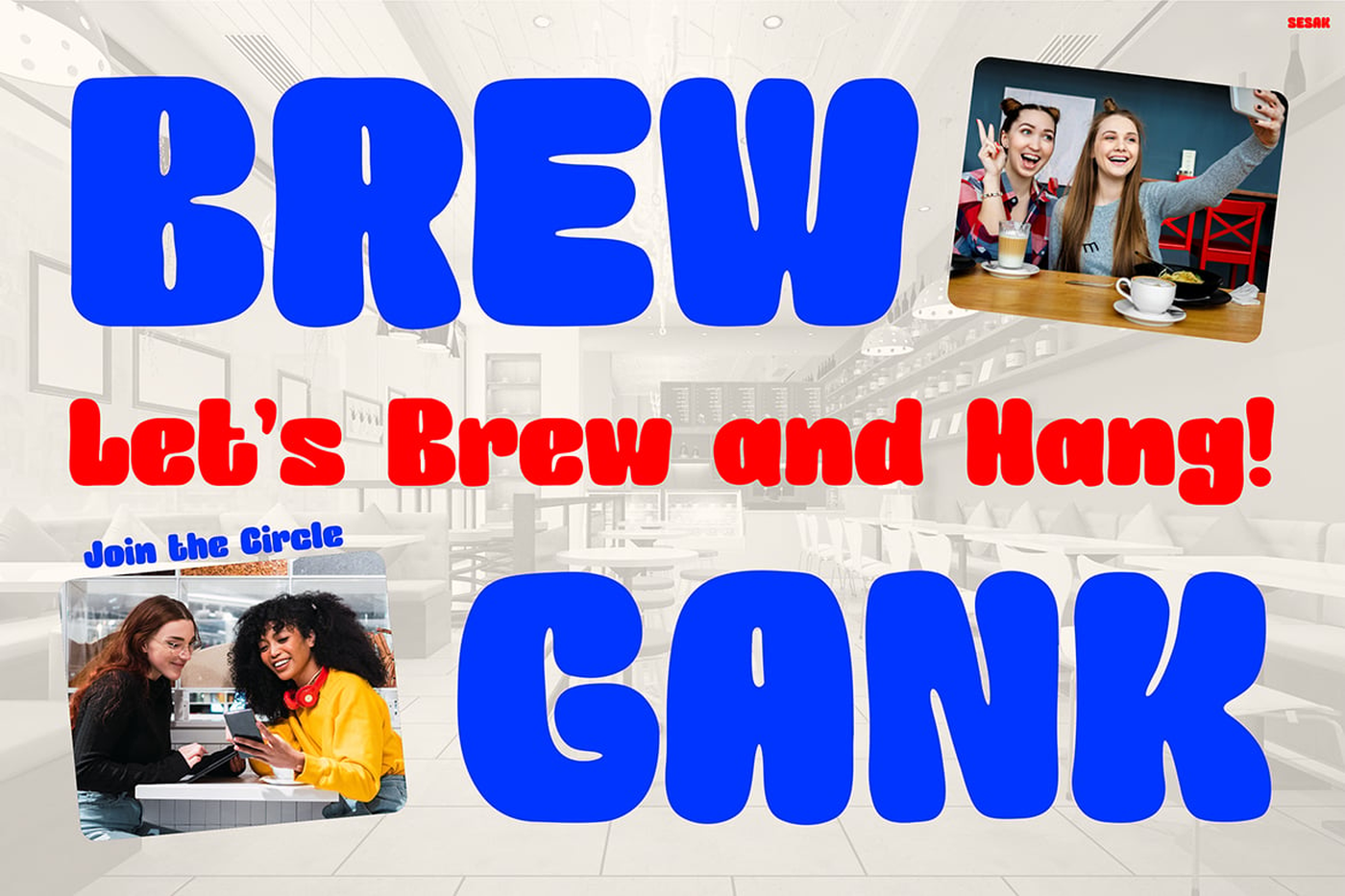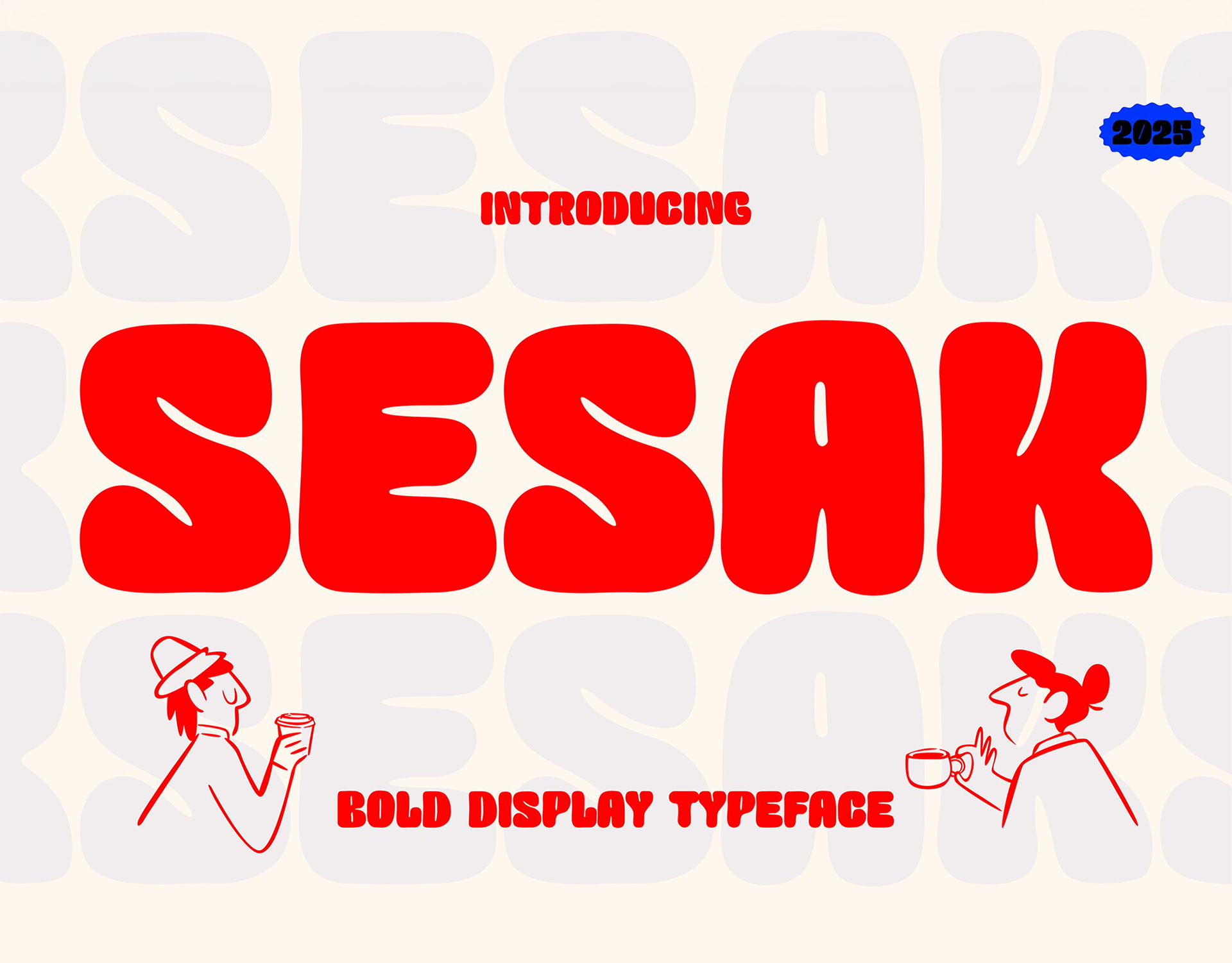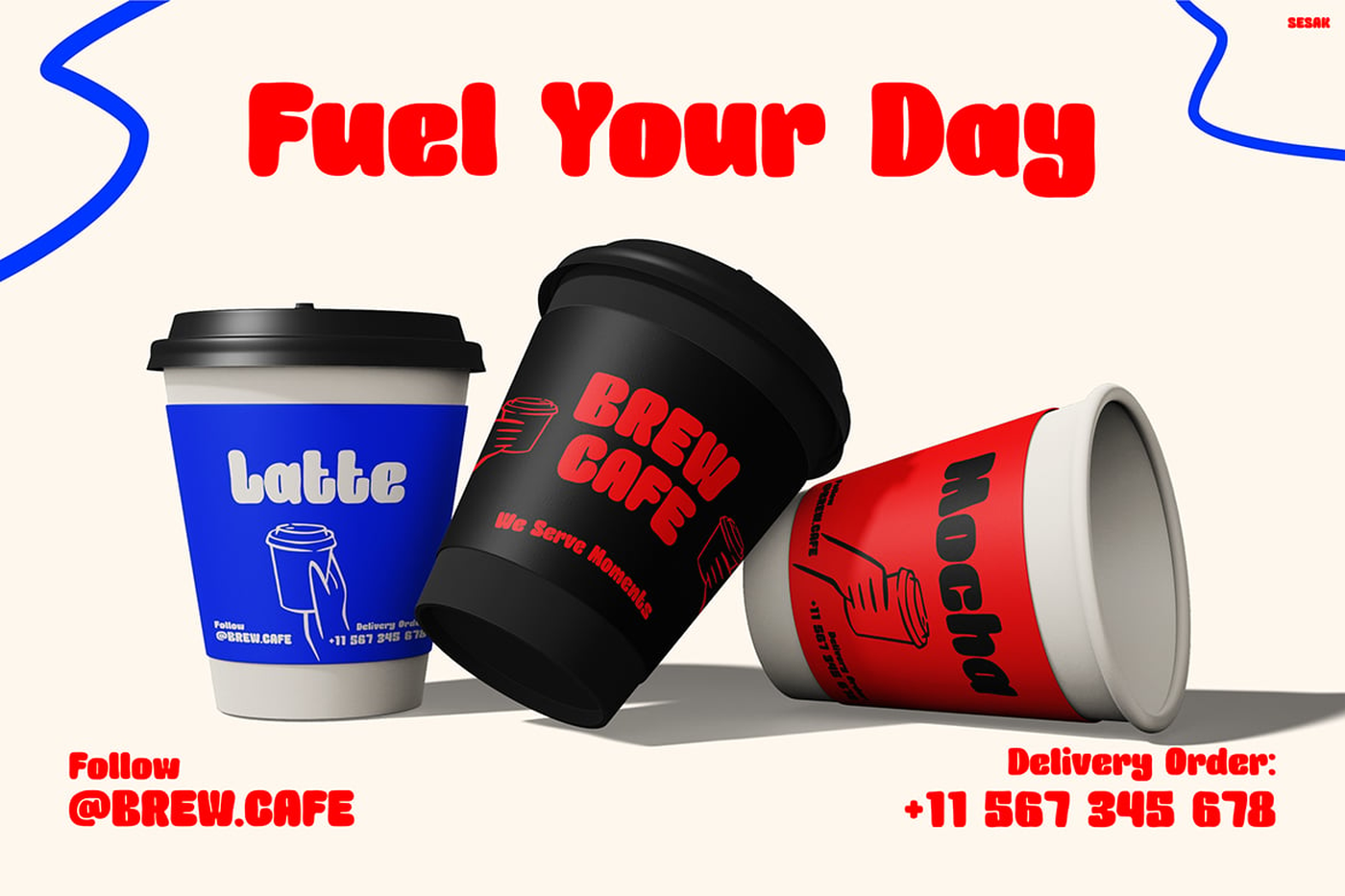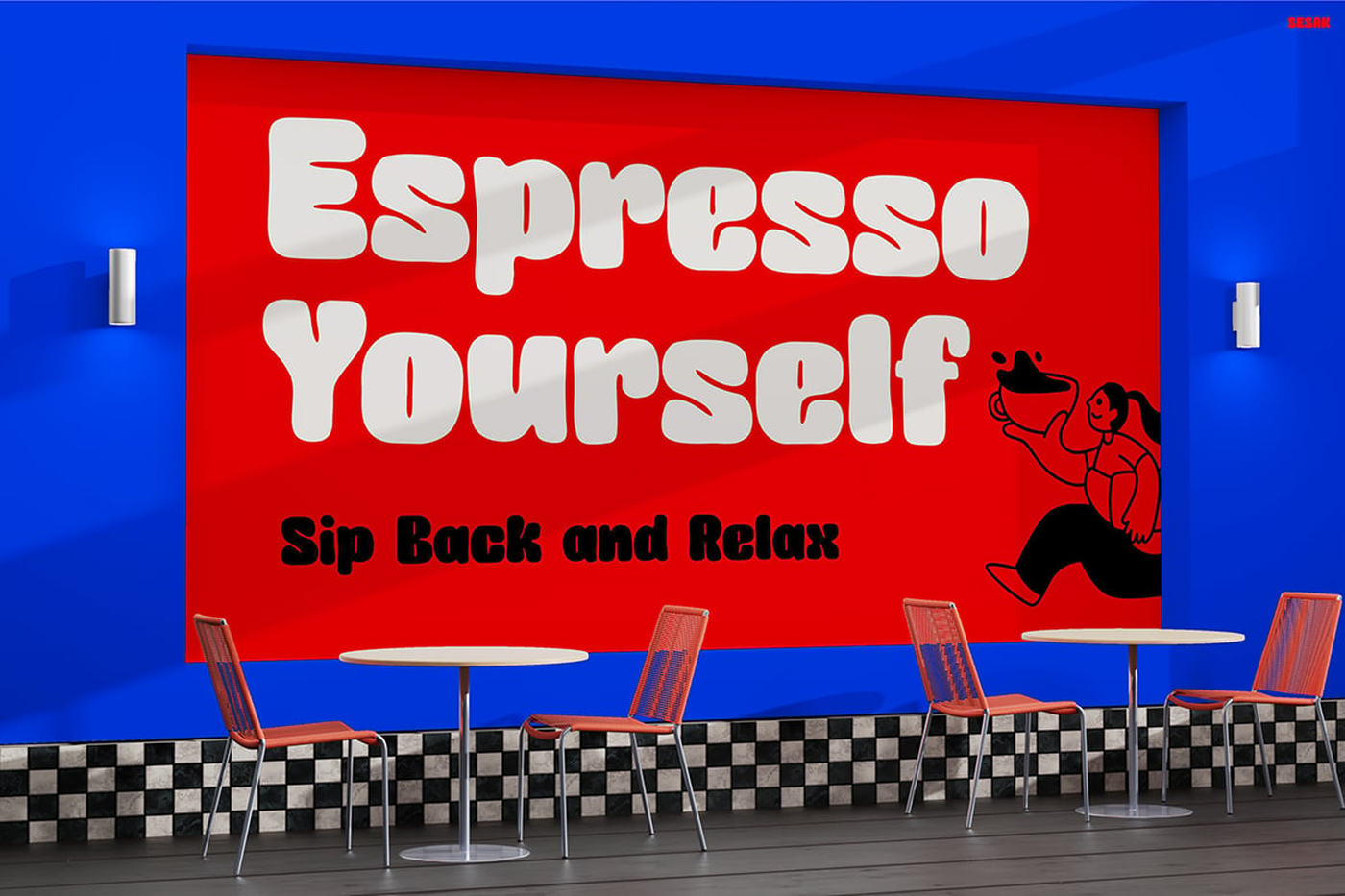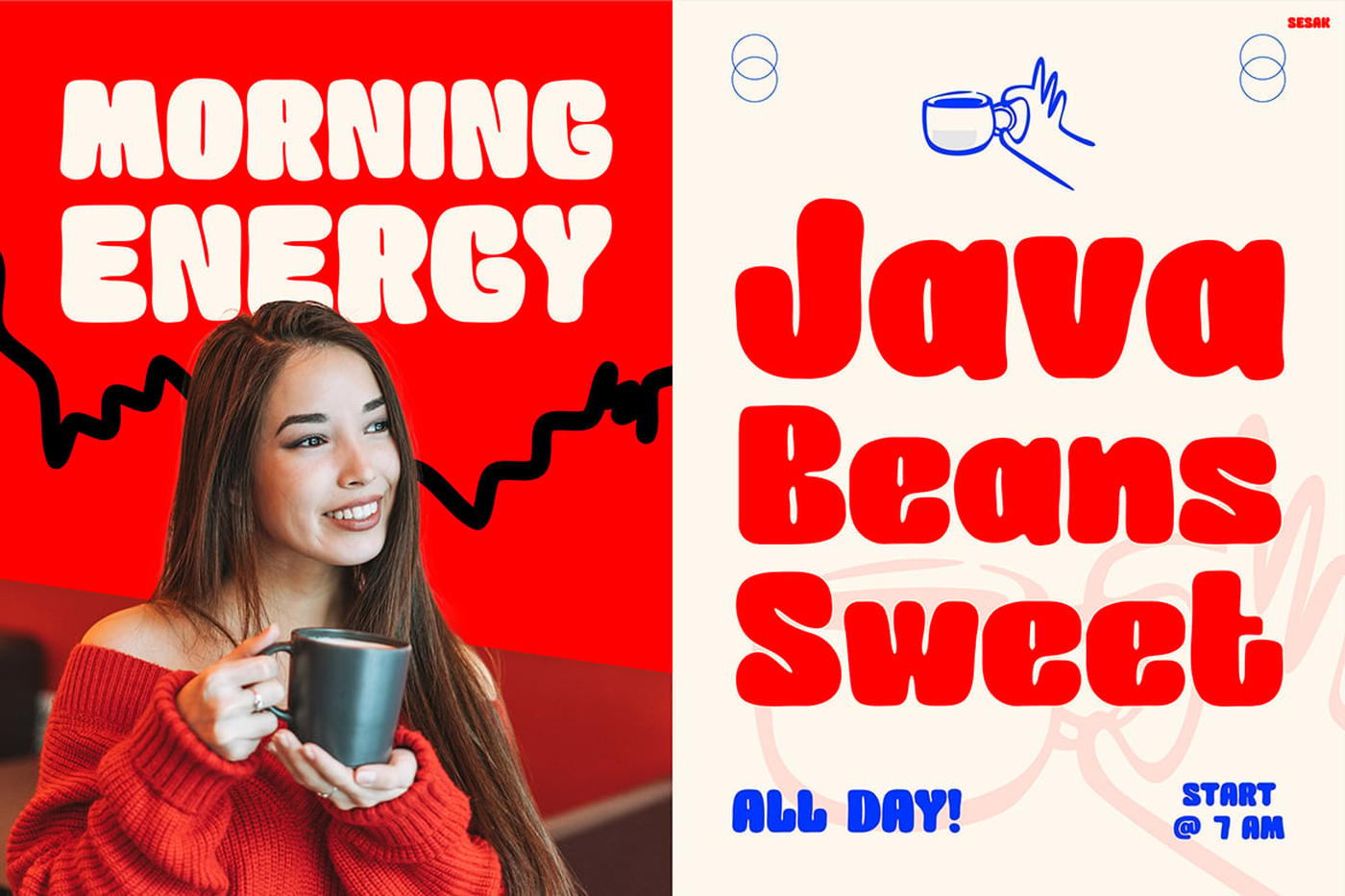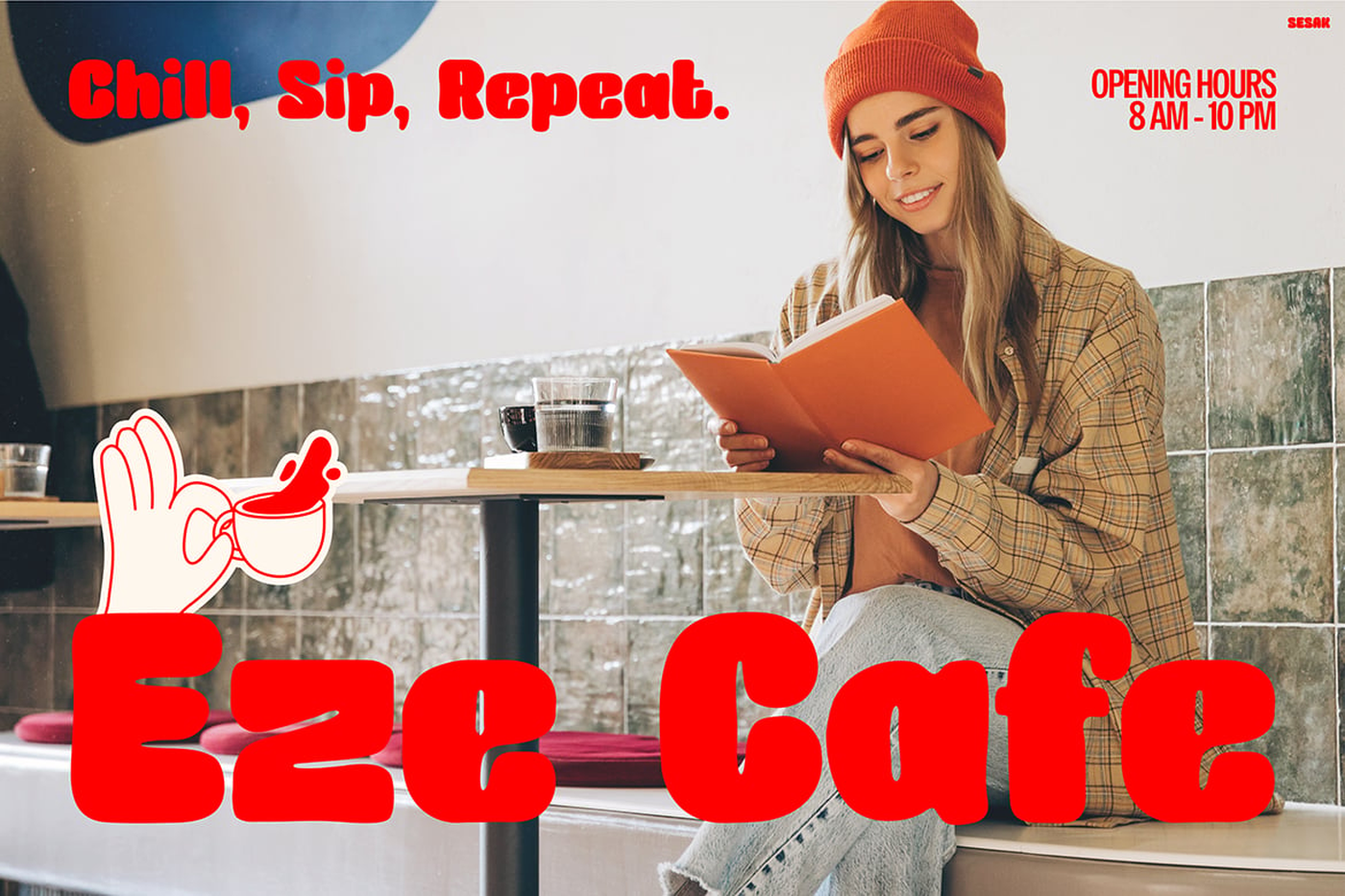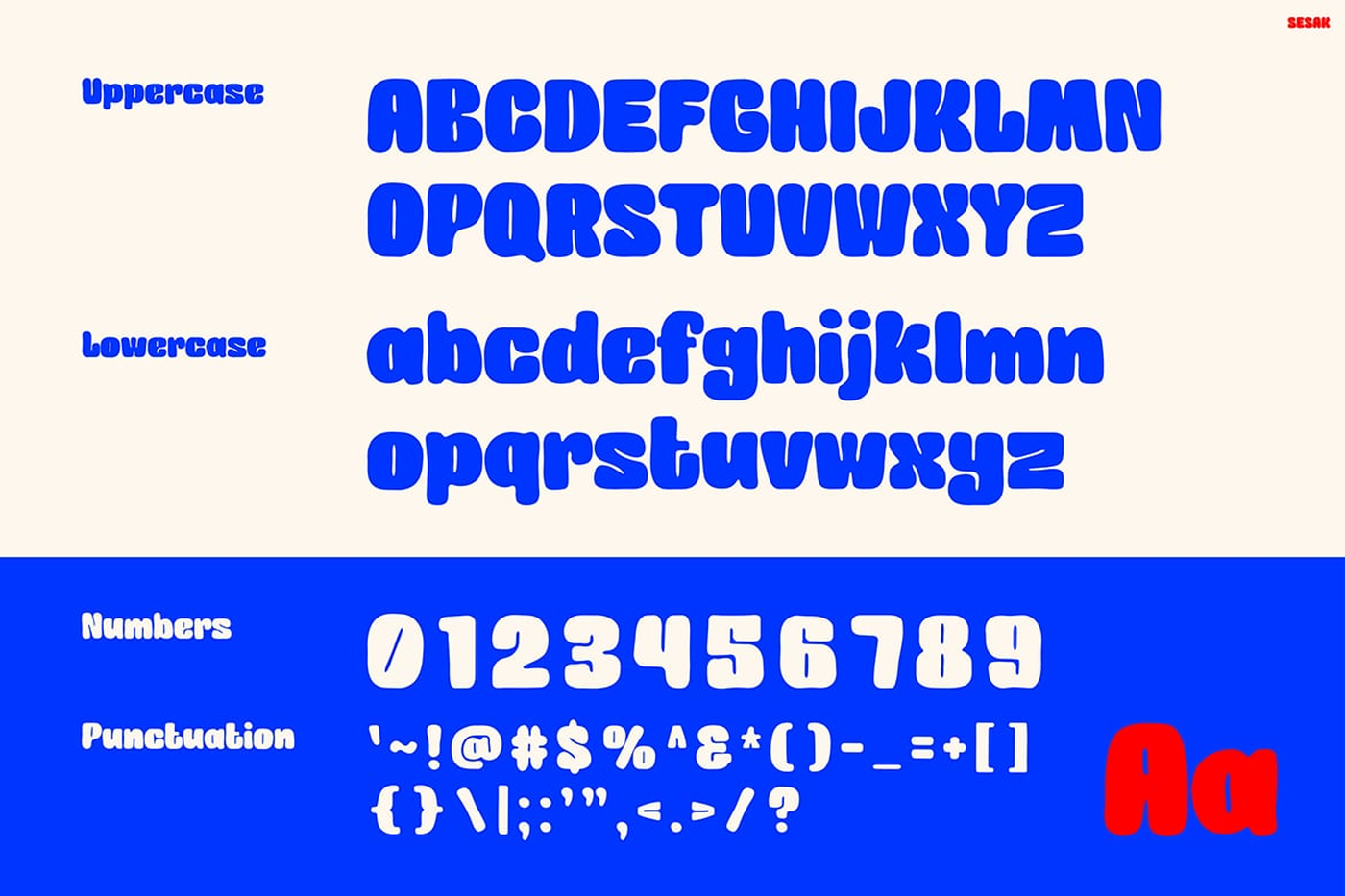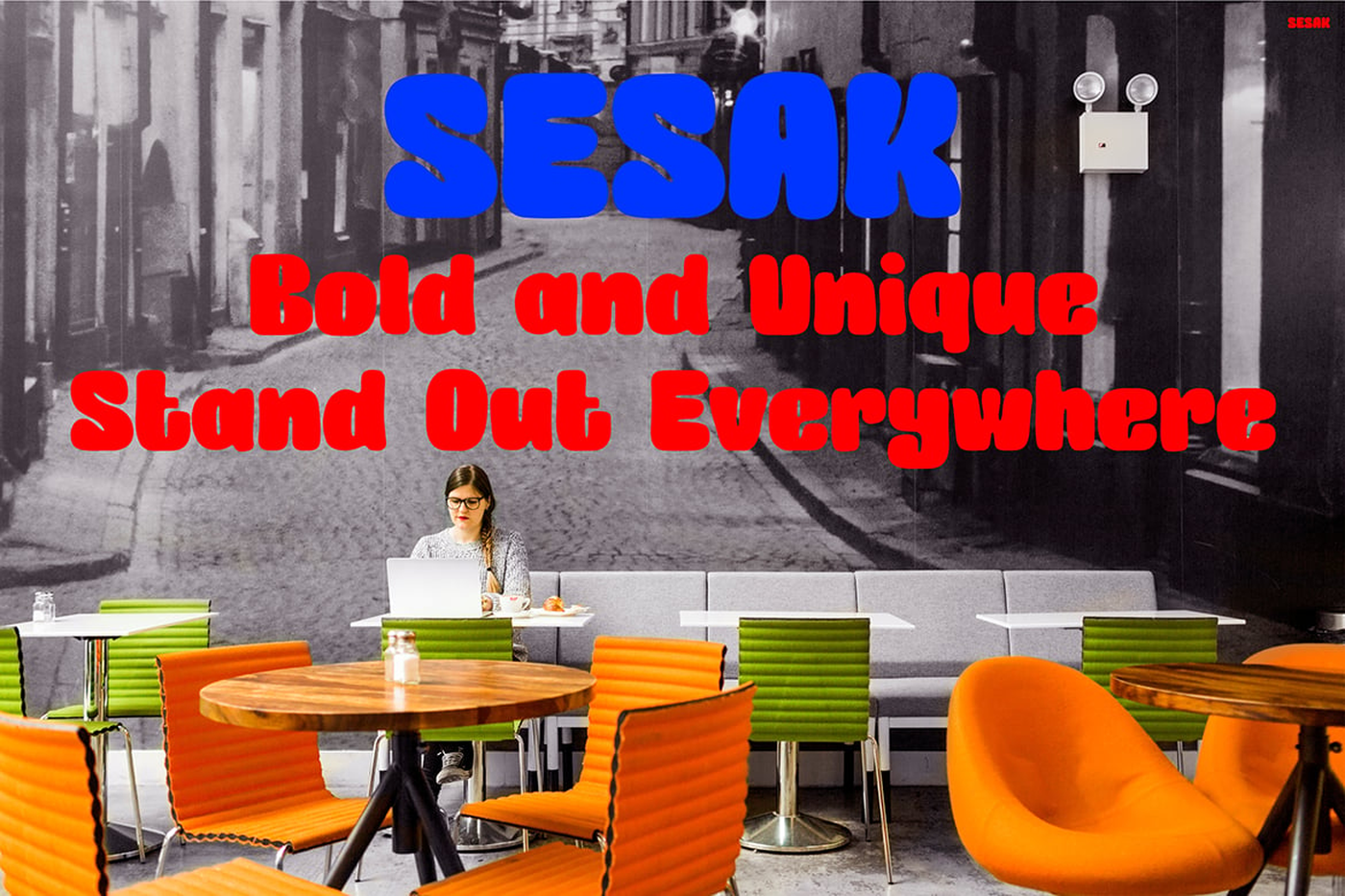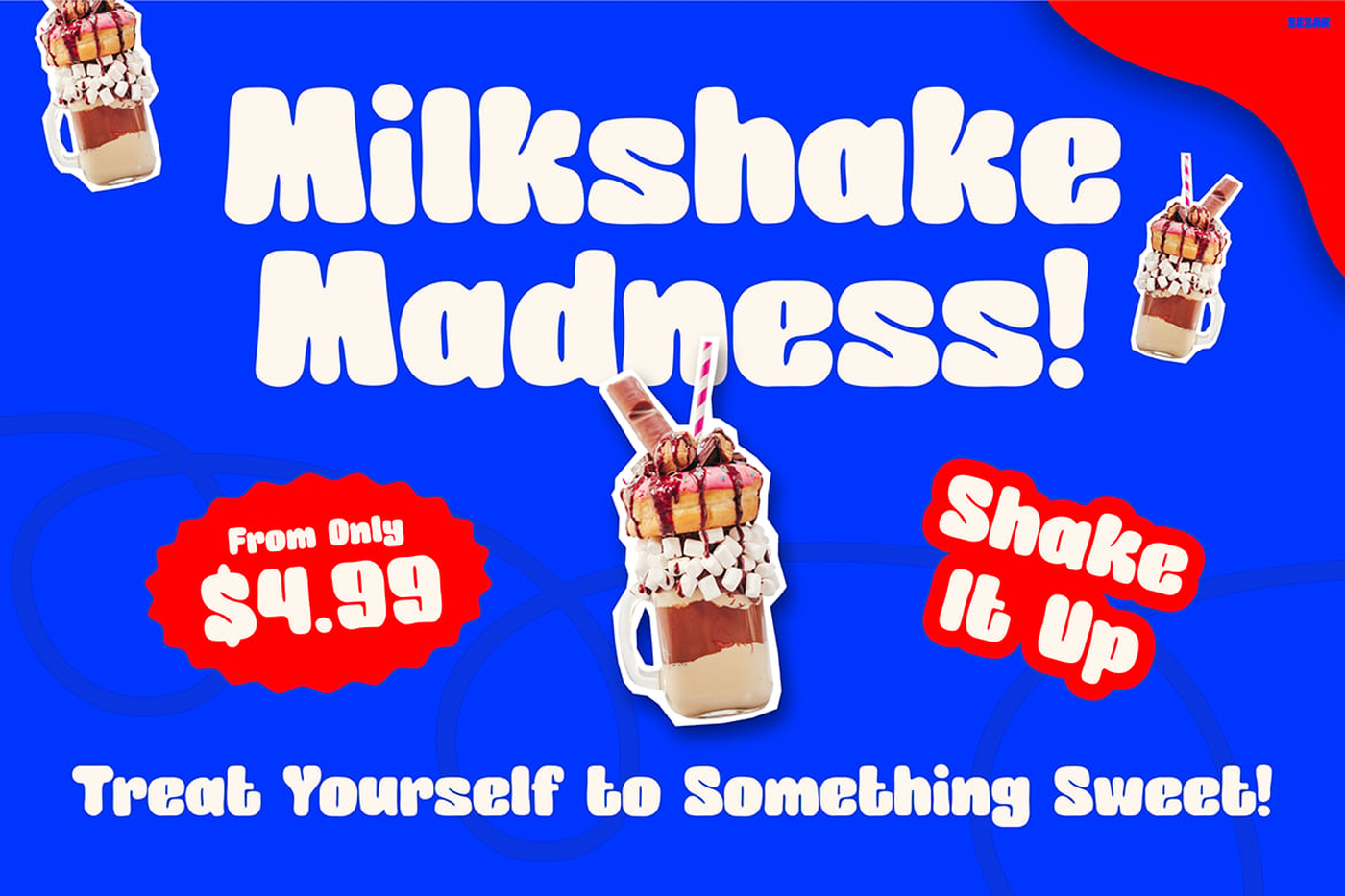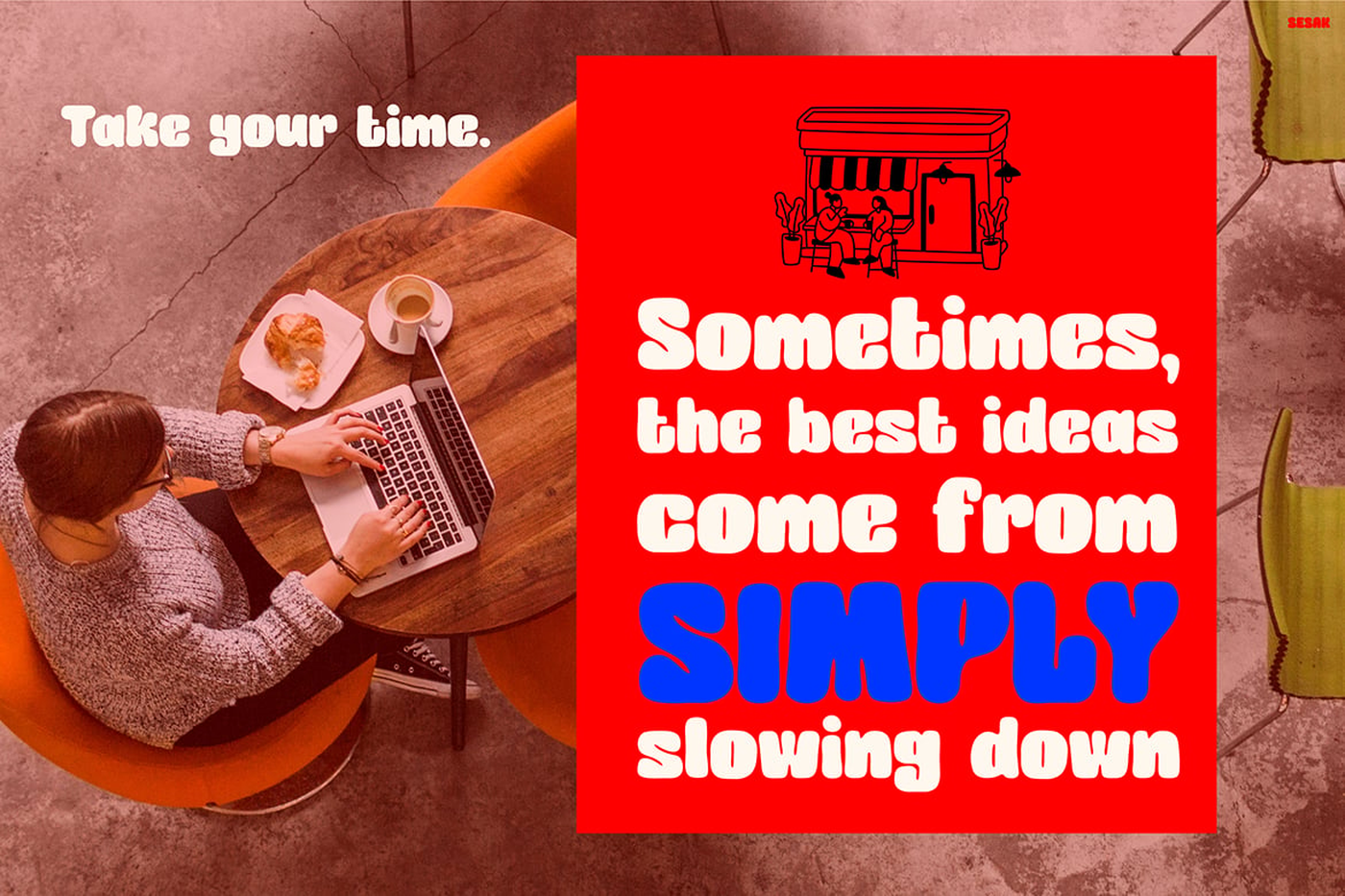
Sesak - Bold Display Font
SESAK is a bold and bubbly display typeface crafted for cheerful food and beverage branding. With rounded curves, chunky silhouettes, and a friendly hand-drawn style, it brings a lively energy to menus, storefront promotions, drink labels, and social media campaigns. Its strong shapes remain clear at any size, making it perfect for eye-catching cafe visuals and modern F&B identities. Designed for coffee shops, bubble tea stores, snack brands, diners, and home-style bakeries. SESAK delivers a warm and upbeat personality that enhances product storytelling, morning beverage ads, loyalty cards, packaging inserts, and fun seasonal campaigns.